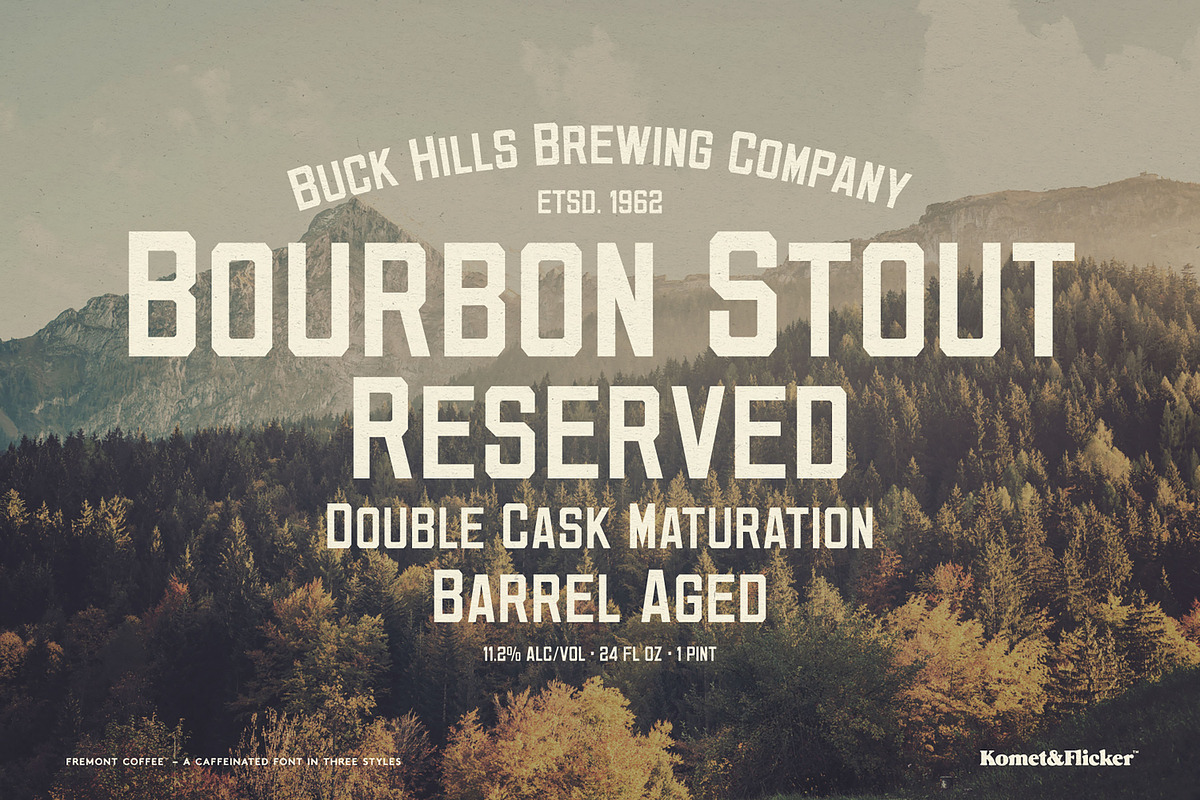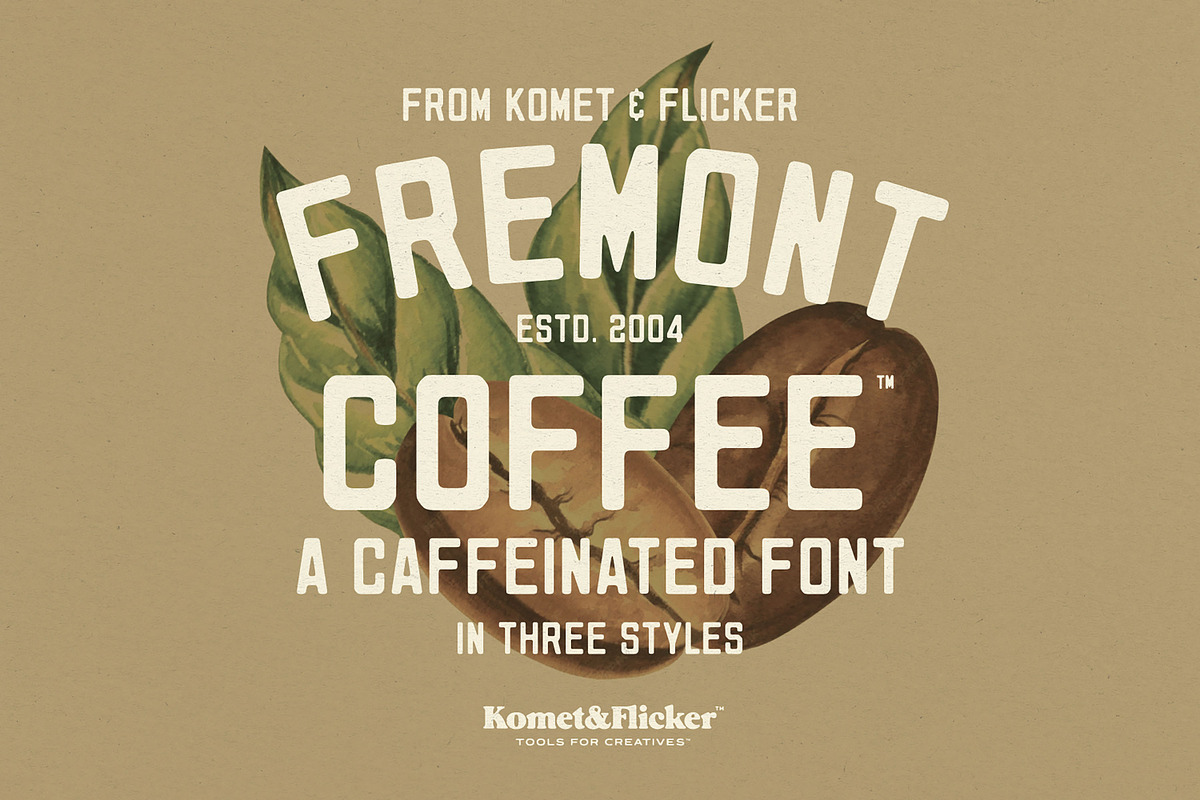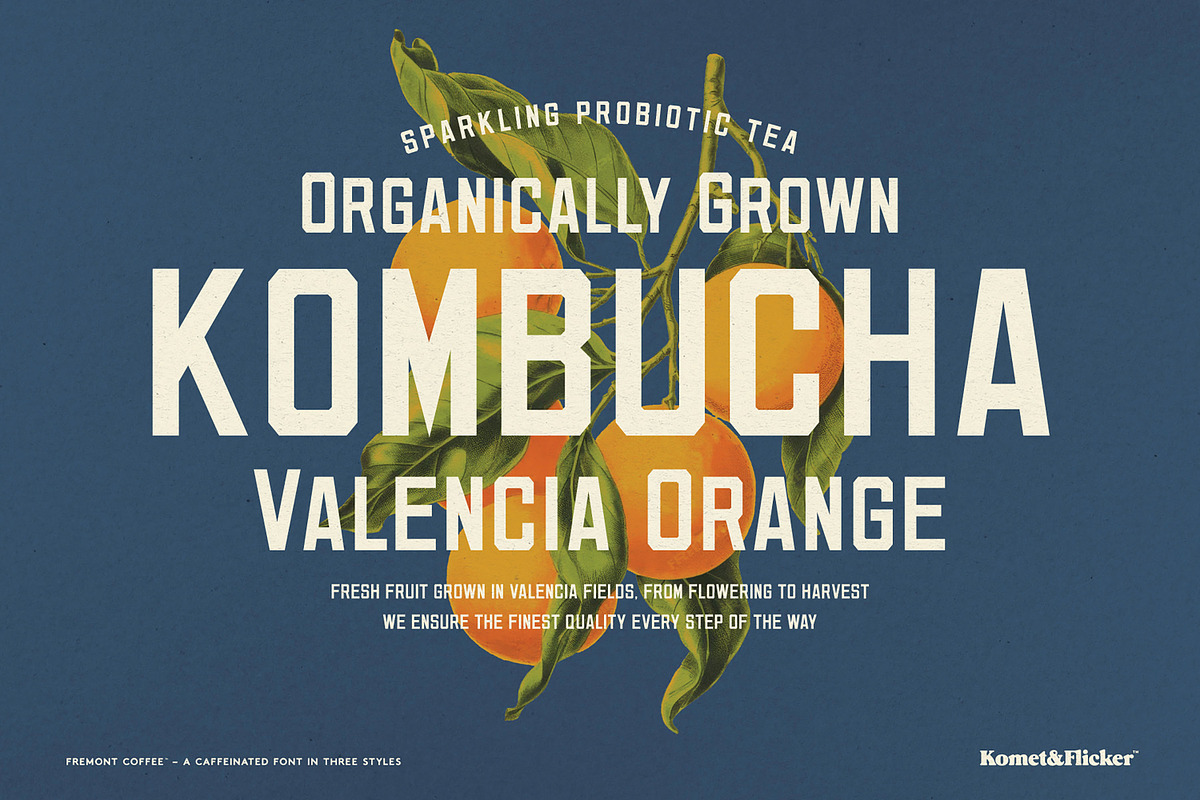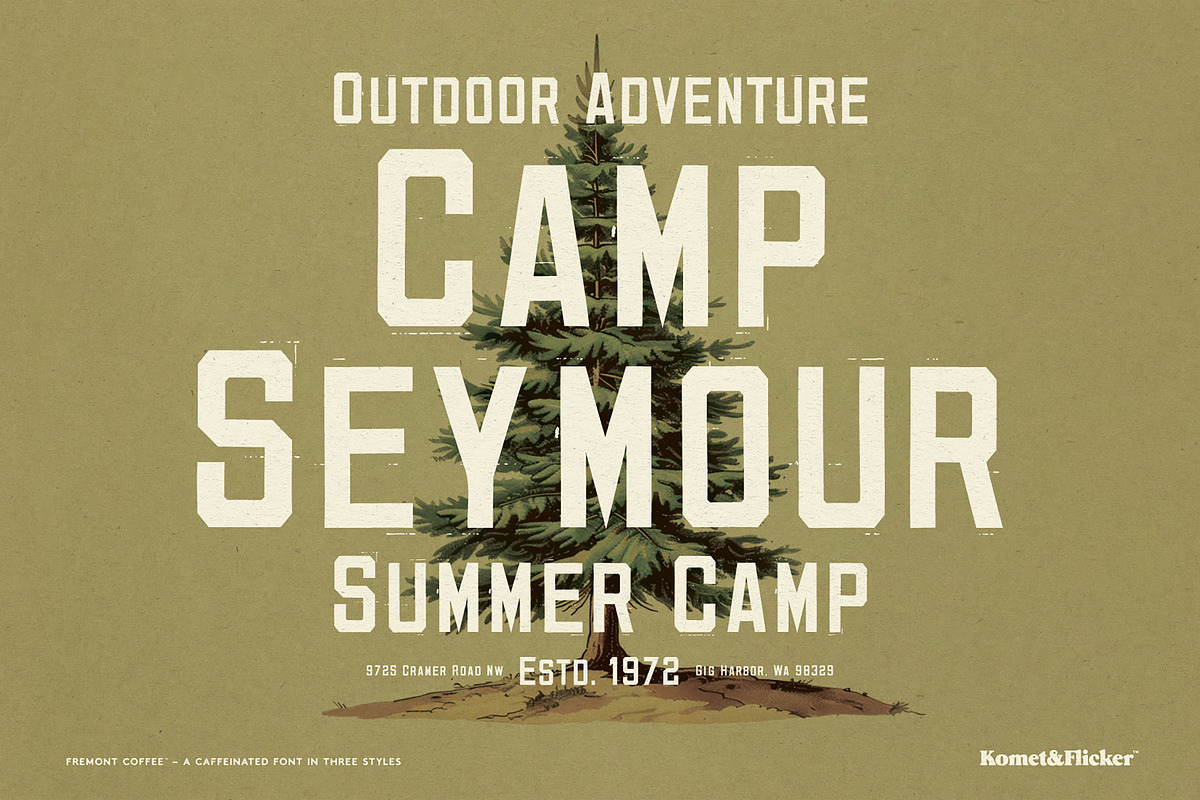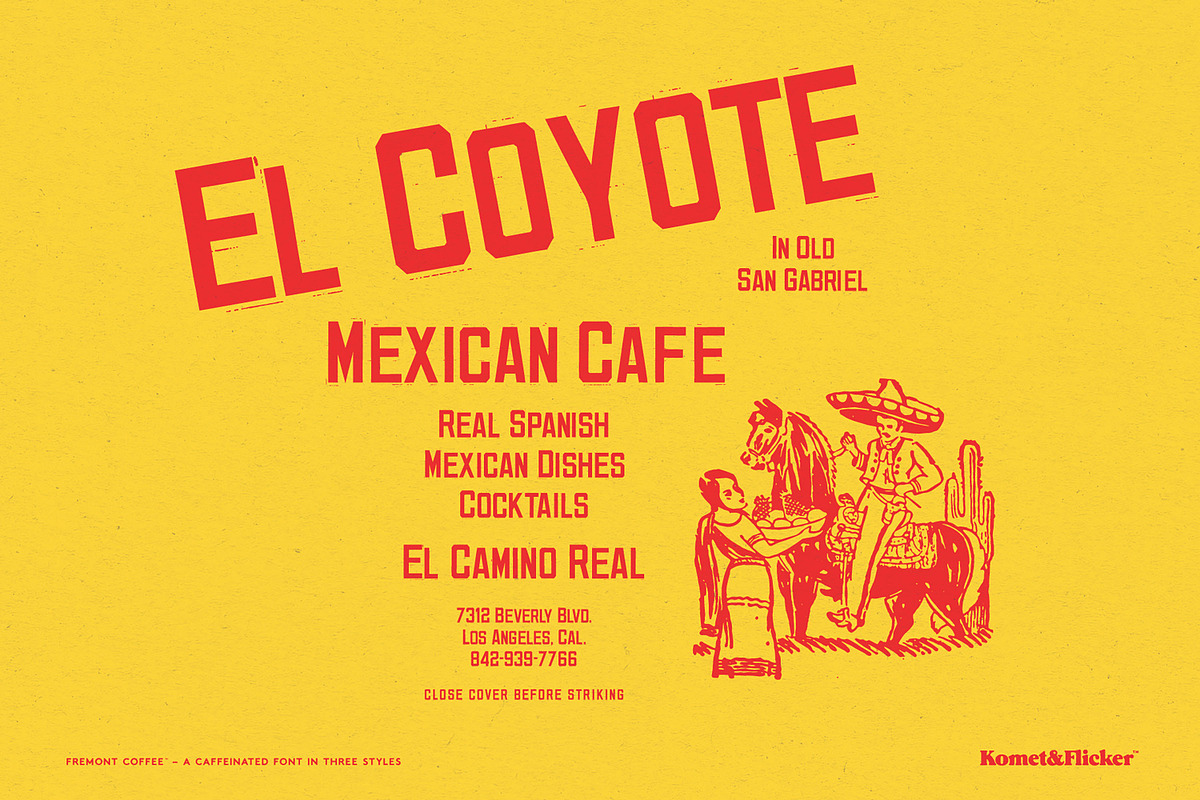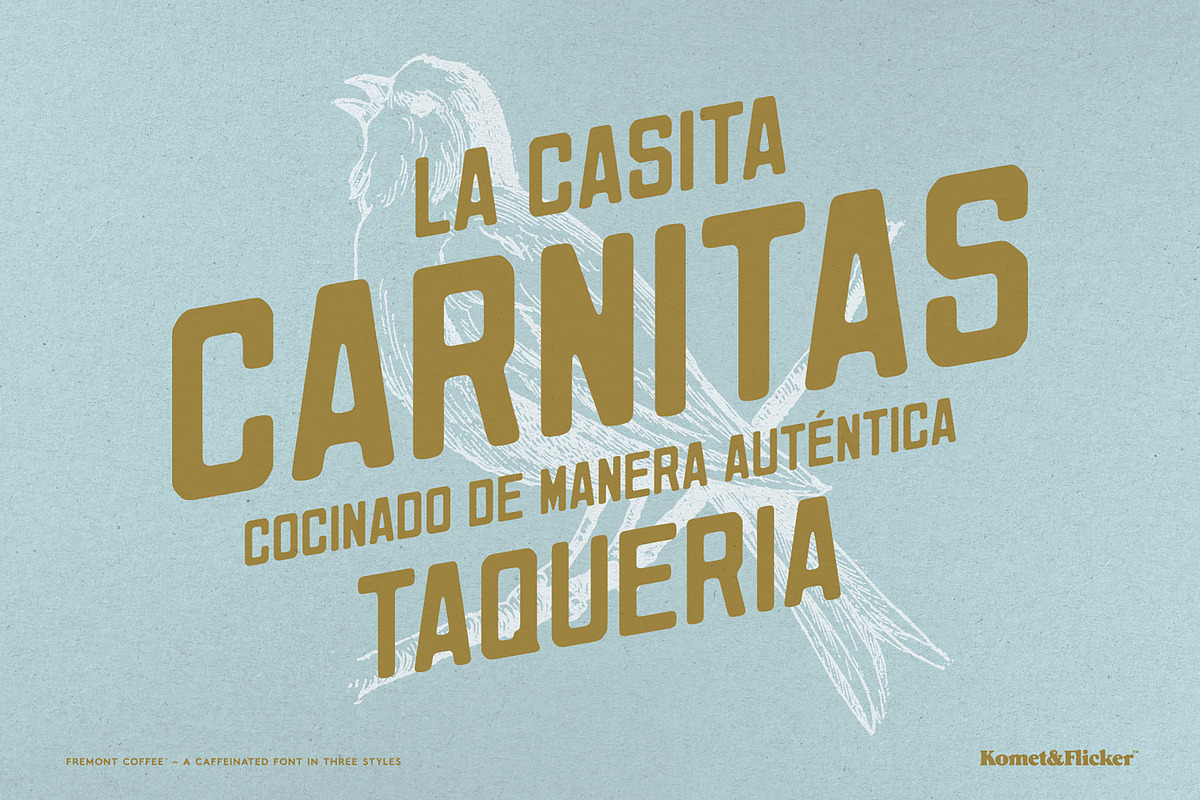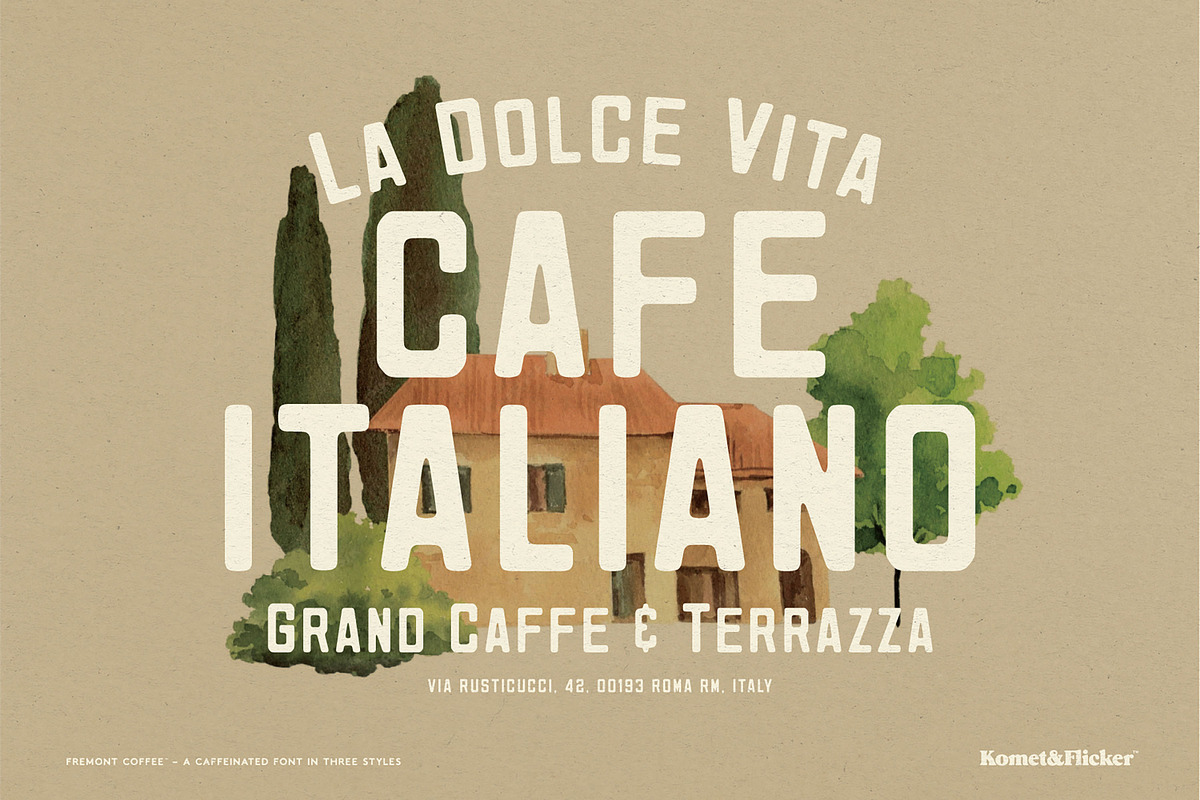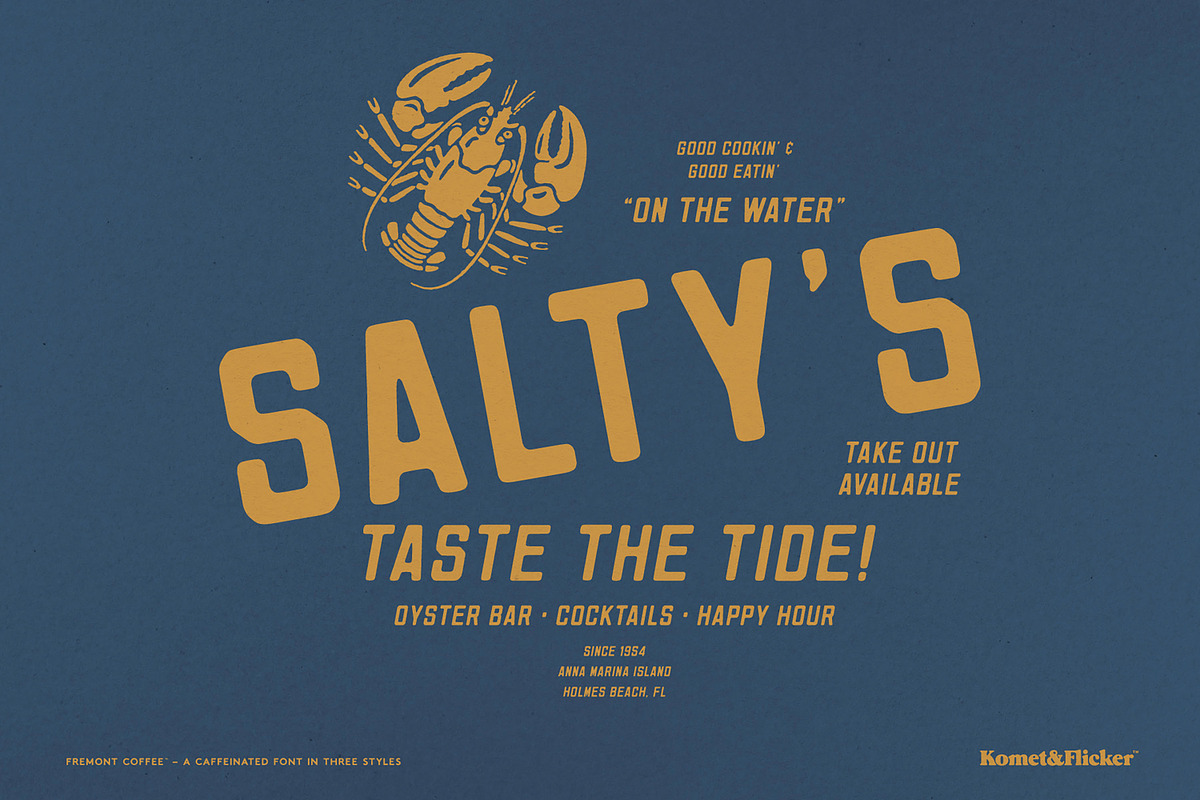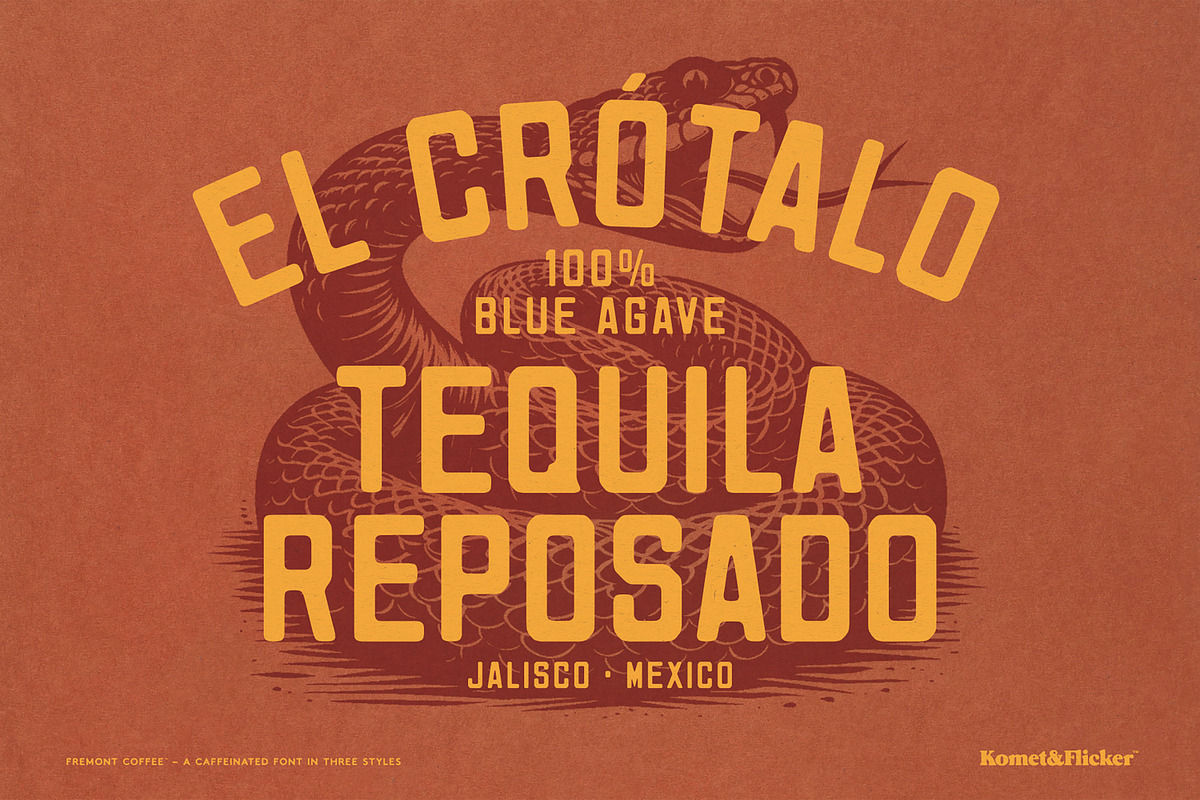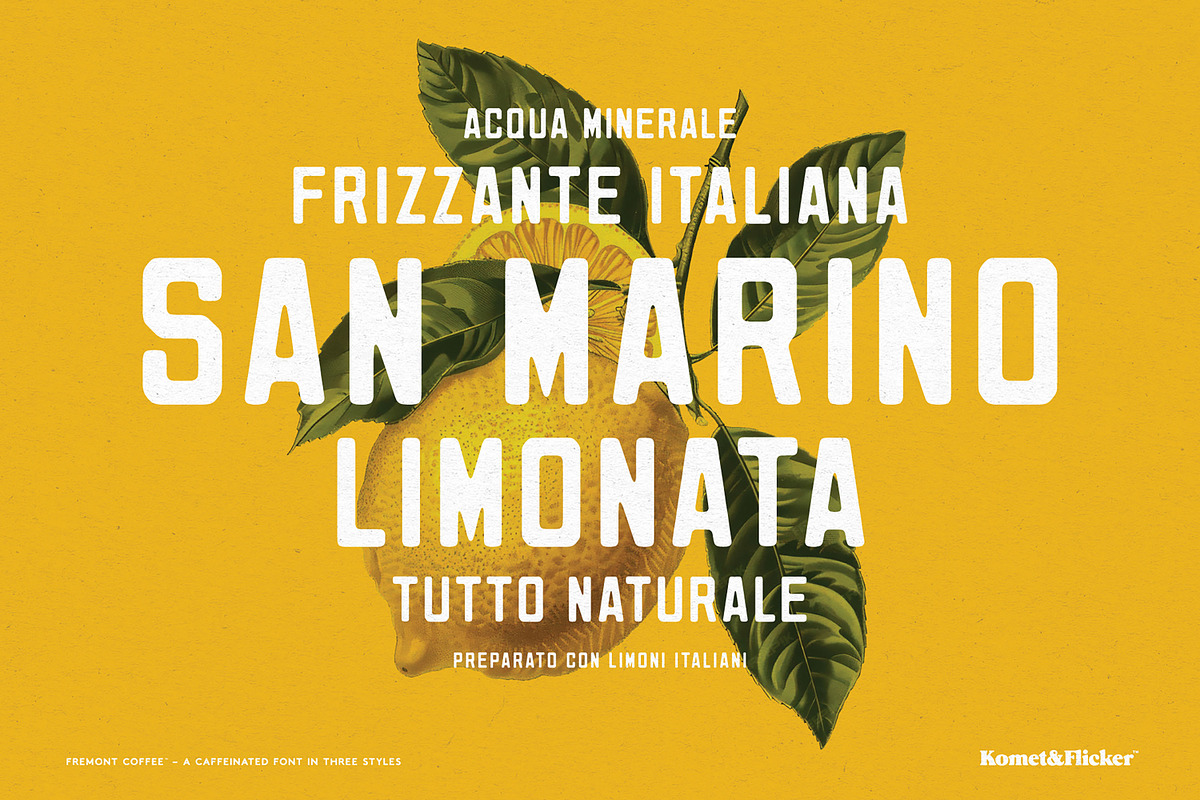
Fremont Coffee - A Caffeinated Font
Get a shot of artisanal charm with Fremont Coffee, a font inspired by the chic menu boards of your favorite hipster coffee shop. This versatile typeface offers three distinct styles to suit your design needs: Fremont Coffee Soft, Fremont Coffee Clean, and Fremont Coffee Rough.
With it’s rounded letterforms, the soft version evokes a rustic and well-worn feeling and is perfect for casual settings, from hip coffee shop menus to friendly flyers.
The clean version brings a sharp, contemporary edge to your projects, perfect for adding a touch of sophistication without compromising on style. Ideal for menu designs, branding, and modern typography needs, this version provides a bold and crisp look.
The rough version captures the gritty, hand-crafted feel of well weathered signage with its deliberately imperfect edges and textured appearance. This style comes with two unique glyph versions, allowing you to mix uppercase and lowercase letters for a more realistic look.
Embrace the blend of modern and rustic with Fremont Coffee, and let your designs brew up something special!
THIS FONT COMES IN THREE STYLES
Fremont Coffee Soft
Fremont Coffee Clean
Fremont Coffee Rough